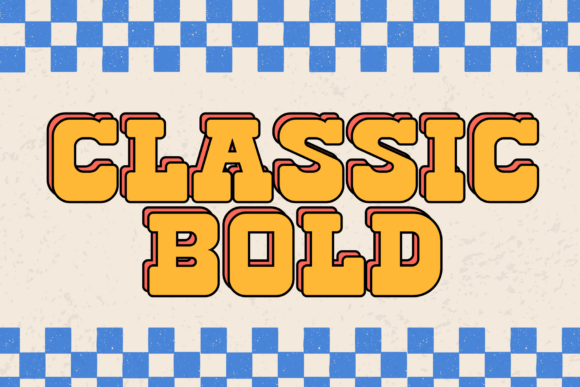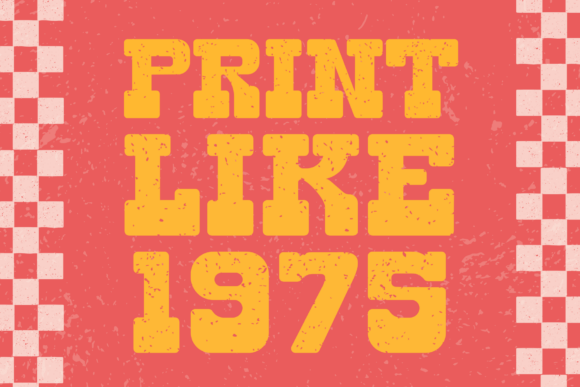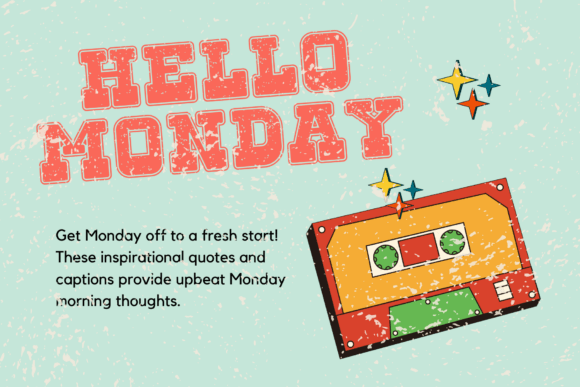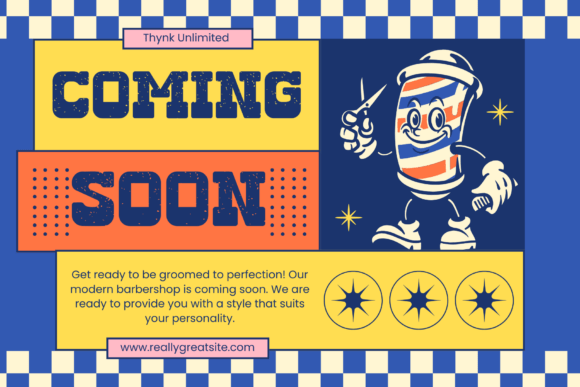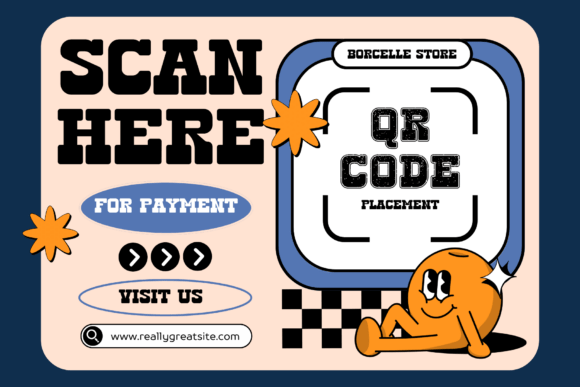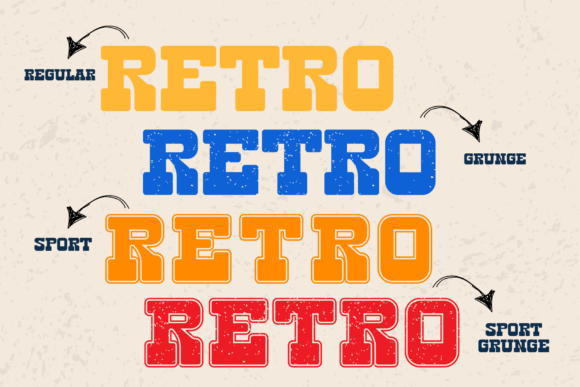
The Retro Charm of Bricktone Font: A Designer’s Delight
I still remember the design project that led me to discover Bricktone Font. I was working on a vintage-inspired branding campaign for a sportswear client, and I was struggling to find the perfect font that captured the essence of classic signage and industrial aesthetics. That’s when I stumbled upon Bricktone, and it instantly became my go-to font for the project. Its bold, confident, and retro slab serif design perfectly complemented my client’s vision, and I knew I had to share my love for this font with fellow designers and creative hobbyists.
An Honest Review of Bricktone Font
What I Love About Bricktone ✨
• ✅ Bold and confident design: Bricktone’s sturdy slabs and nostalgic flair make it perfect for creating eye-catching headlines and titles.
• ✅ Retro charm: This font’s vintage sportswear and industrial letterpress inspiration adds a unique touch to any design project.
• ✅ Timeless character: Bricktone’s classic design ensures it remains relevant and stylish, even in modern design projects.
• ✅ Easy to read: Despite its bold design, Bricktone is surprisingly legible, making it suitable for body text and captions.
While Bricktone is an excellent font, it’s not without its limitations. For instance:
• 🤔 Limited font weights: Bricktone currently only offers a few font weights, which might limit its versatility in certain design projects.
• 🤔 Glyph limitations: Some users have reported that Bricktone’s glyph set is not as extensive as they would like, which might make it less suitable for projects requiring a wide range of special characters.
The Designer Inspiration Behind Bricktone
Bricktone’s design is inspired by classic signage, vintage sportswear, and industrial letterpress aesthetics. Its creator drew inspiration from the nostalgic charm of retro advertisements and sports equipment logos, aiming to create a font that would evoke a sense of timeless character and confidence.
Q: What is Bricktone Font?
A: Bricktone Font is a bold and confident retro slab serif font inspired by classic signage, vintage sportswear, and industrial letterpress aesthetics.
Q: Is Bricktone suitable for body text?
A: While Bricktone is primarily designed for headlines and titles, it’s surprisingly legible and can be used for body text in certain design projects.
Q: Is Bricktone available in multiple languages?
A: Bricktone’s language support may vary, but it’s generally suitable for use in English and other languages that use the Latin alphabet.